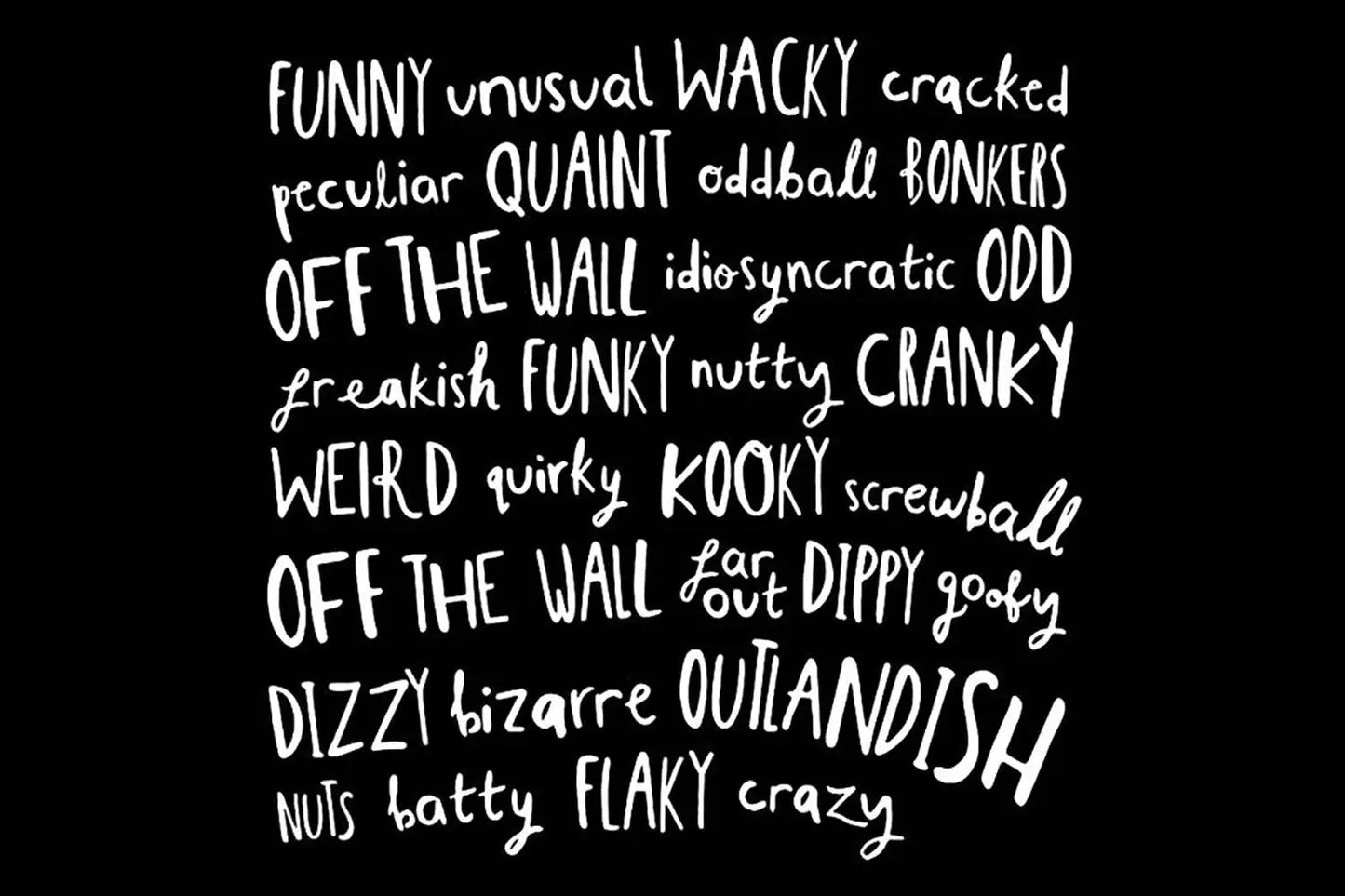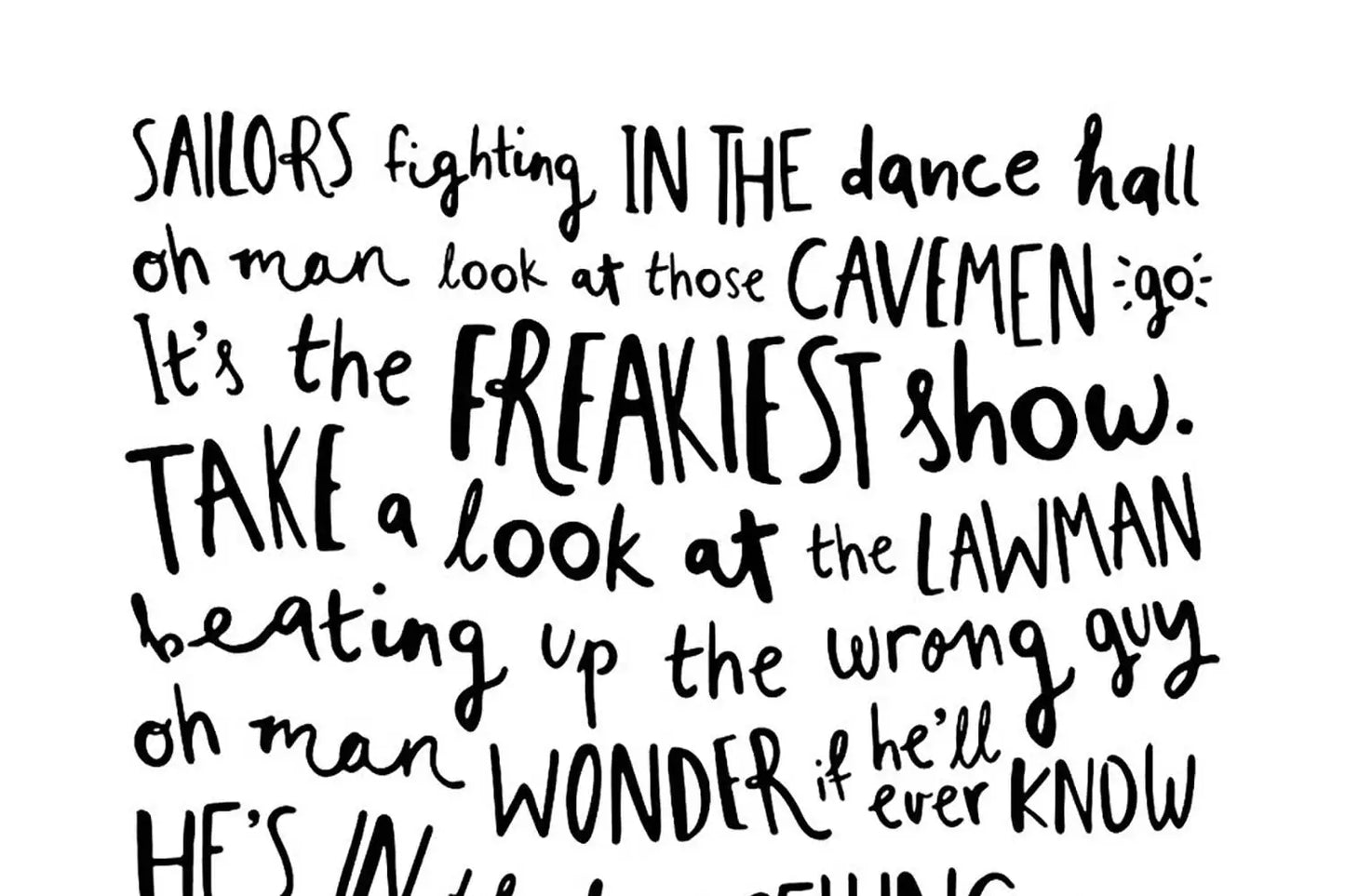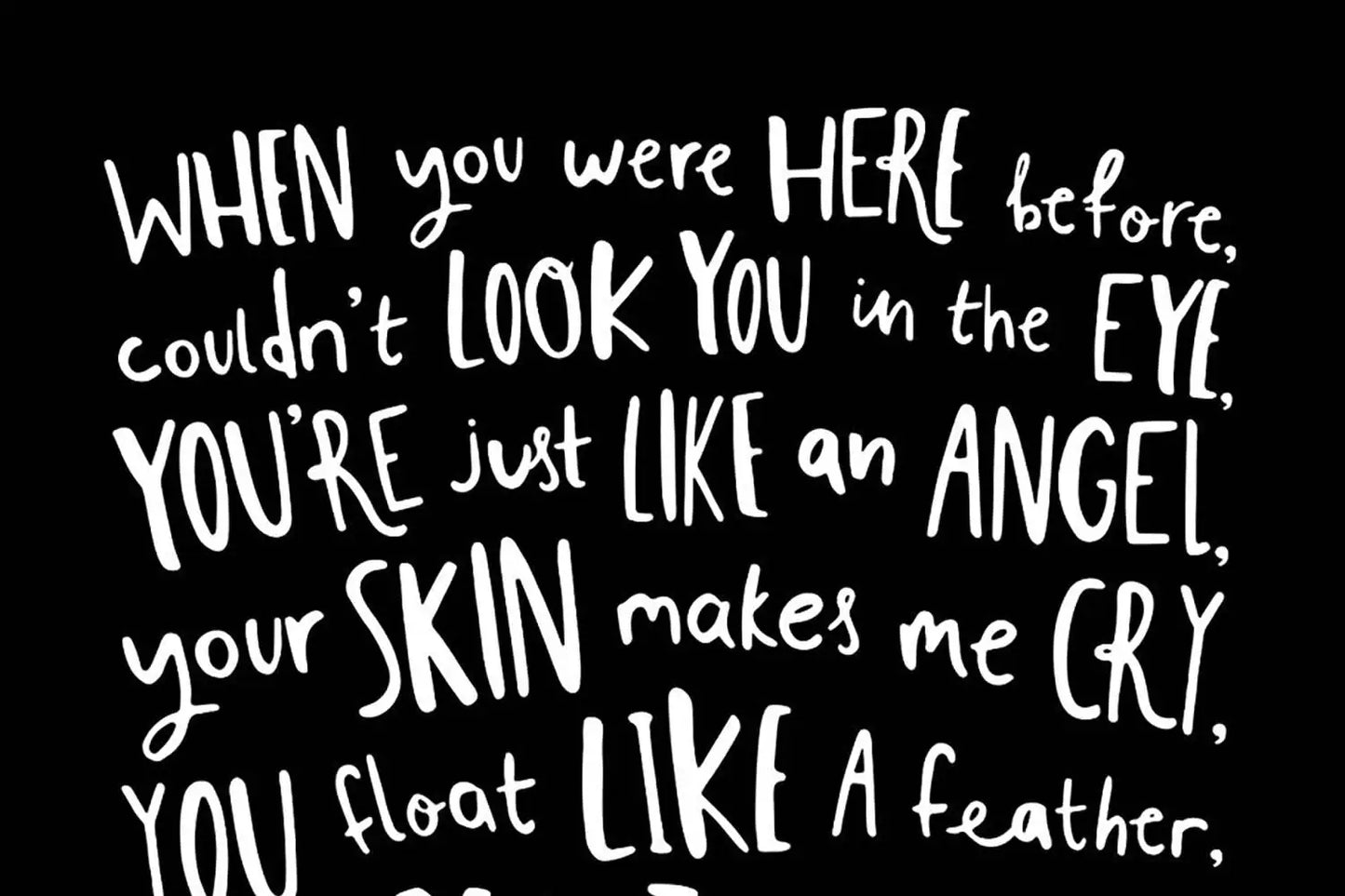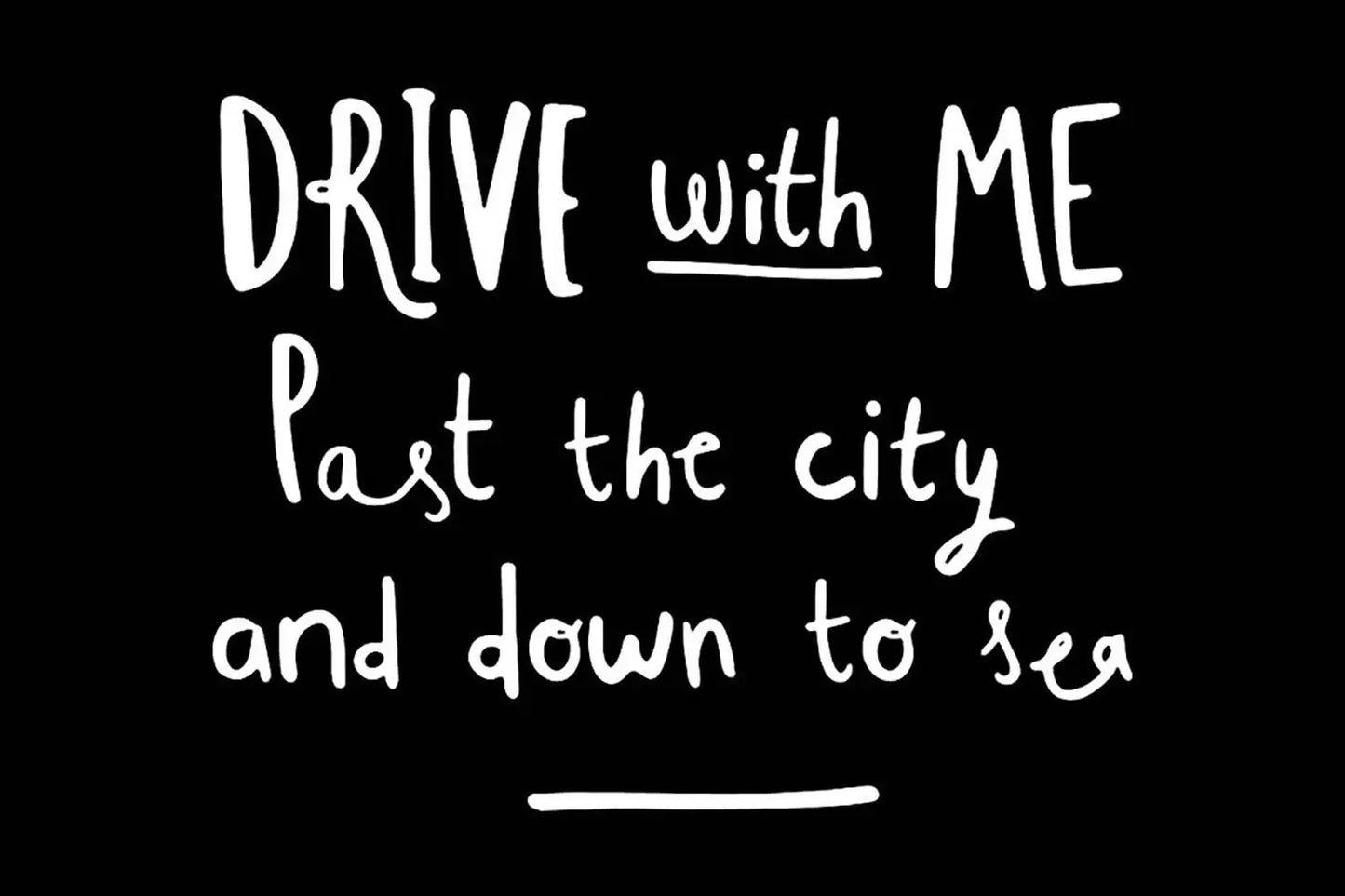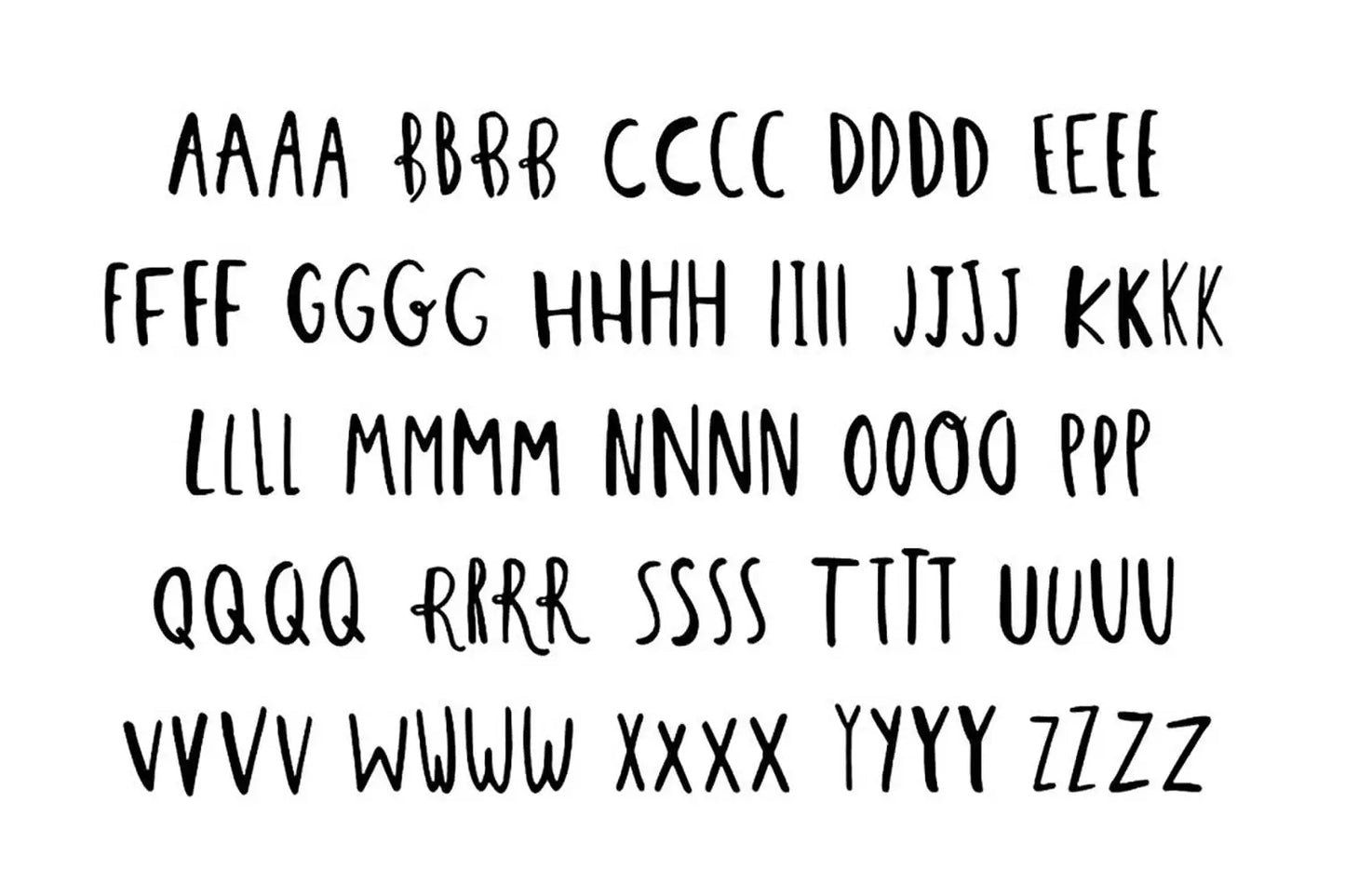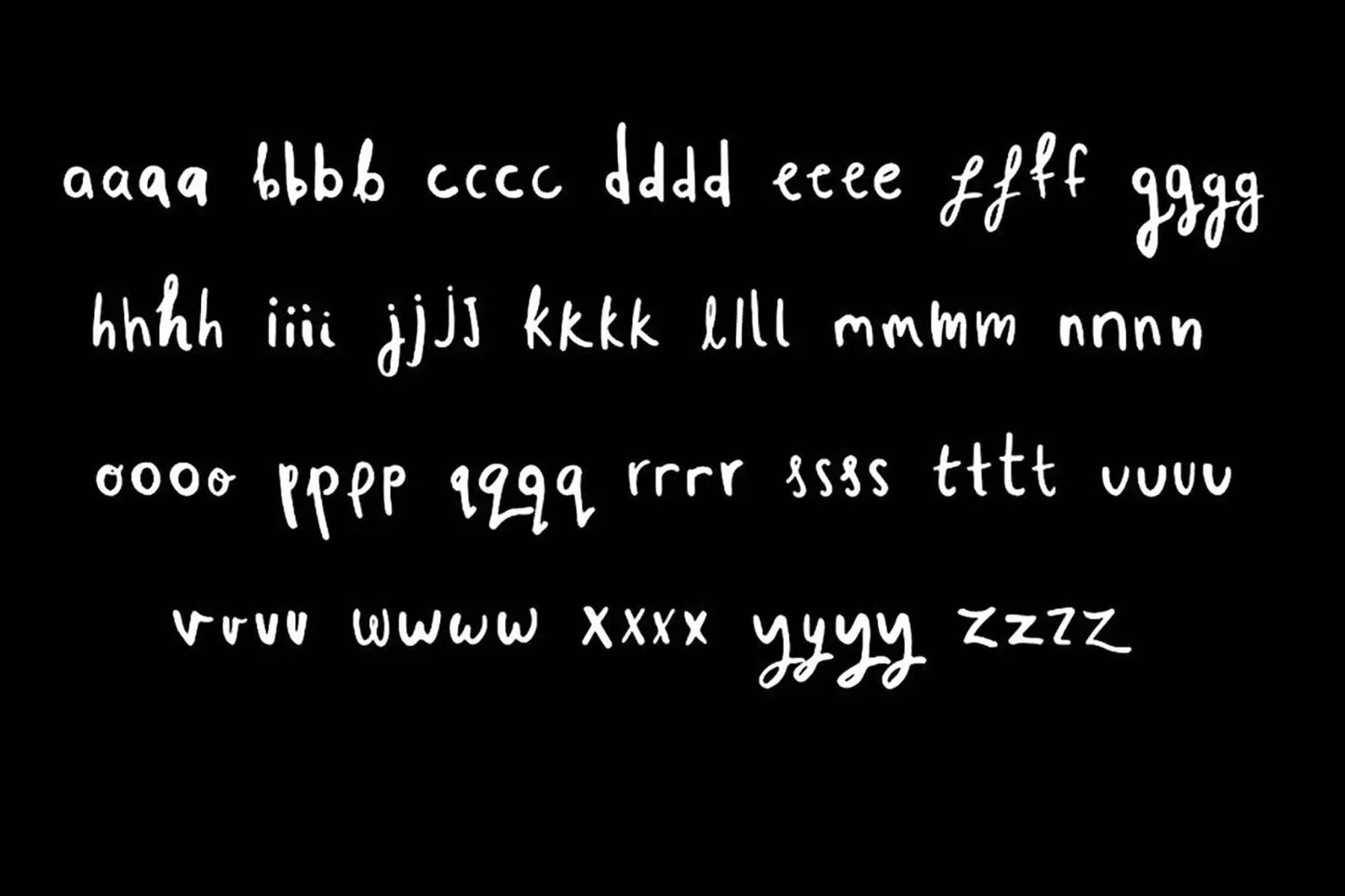
Whippin Piccadilly font
About Whippin Piccadilly font
Whippin Piccadilly has the aesthetics of a cursive font. It looks like handwriting—but it’s not! It has 4 contextual alternatives for each letter.
The result of all the different characters is that Whippin Piccadilly has a happy-go-lucky personality. It looks funky and playful. I love the randomness of the letters it throws out. The alternatives give it a quirky and sometimes mismatched appearance, but that’s part of the charm.
It’s ideal for book covers, posters, and packaging.
If Whippin Piccadilly font were a celebrity?
If the Whippin Piccadilly font were a celebrity, it would embody the charm and wit of Hugh Grant.